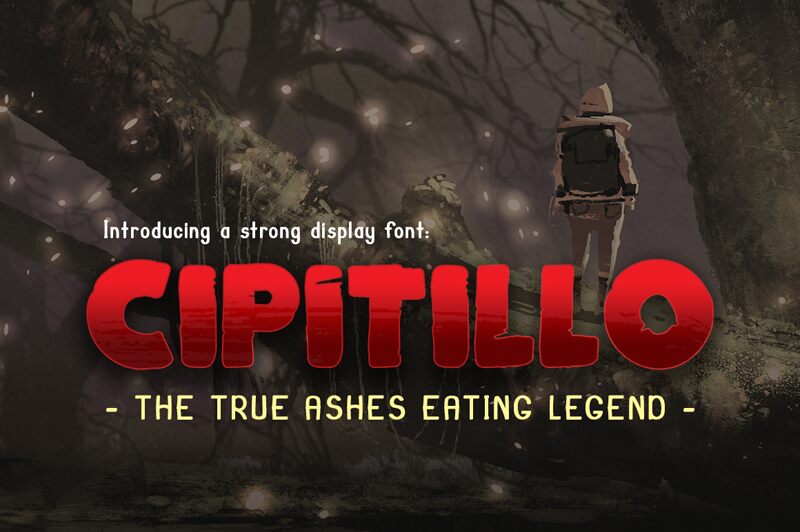
A horror style inspired display font that is perfect for that extra detail in your design, the file includes .OTF format.
Cipitillo
Juan Miguel Castillo